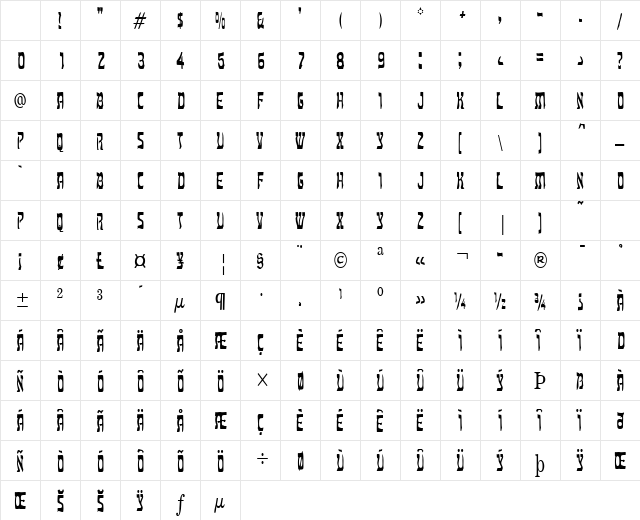
Kosher Thin Normal
Kosher Thin Family
Design Context for Kosher Thin
Kosher Thin is a composed and adaptable typeface that performs quietly and consistently across a wide range of design contexts. Its slender proportions lend an understated elegance to any composition.